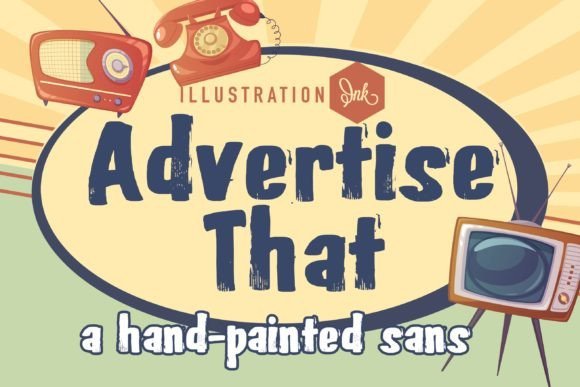
Handwritten Charm: Unlocking the Potential of Advertise That Font
Have you ever sat down with a pen and paper, brainstorming ideas for a creative project, and suddenly felt a spark of inspiration? The imperfections and quirks of handwriting can be incredibly powerful in conveying emotion and personality. This is exactly what designers aim to capture with Advertise That Font, a typeface designed to mimic the look and feel of handwritten text.
Whether you’re crafting a wedding invitation, a birthday card, or a promotional flyer, Advertise That Font can add a touch of warmth and authenticity to your design. This versatile font is perfect for conveying a sense of approachability, making it an invaluable tool for designers looking to create engaging and memorable content.
Key Features of “Advertise That Font”
- Unique Characteristics: Designed specifically for advertising and promotional materials, this font features bold and eye-catching letterforms that grab attention
Designer Review: Advertise That Font
Overall, I was pleasantly surprised by Advertise That Font. It’s a great choice for projects that need a bold, attention-grabbing font. ✨
The font’s unique combination of sans-serif and script elements gives it a modern, dynamic feel that’s perfect for advertisements, marketing materials, and other promotional content. It’s also highly legible, even at smaller font sizes. ✨
Pros:
- Unique blend of sans-serif and script elements
- Modern, dynamic feel
- Highly legible
- Great for advertisements and marketing materials
However, there are a few limitations to consider. ⚠️
Cons:
- Limited language support (only includes Latin-based languages)
- Not ideal for body text (best used for headlines and titles)
- Can be difficult to read at very small font sizes
Overall, I’d give Advertise That Font 4 out of 5 stars. It’s a great choice for projects that need a bold, attention-grabbing font, but it may not be the best fit for every situation. With some careful planning and usage, it can be a real showstopper.
Use “Advertise That Font” to create eye-catching headlines and titles.
Combine it with bold colors and graphics to create a striking visual effect.
Experiment with different font sizes and styles to create a unique look.
Use “Advertise That Font” for:
Marketing materials, such as brochures and flyers.
Advertising campaigns, including social media and print ads